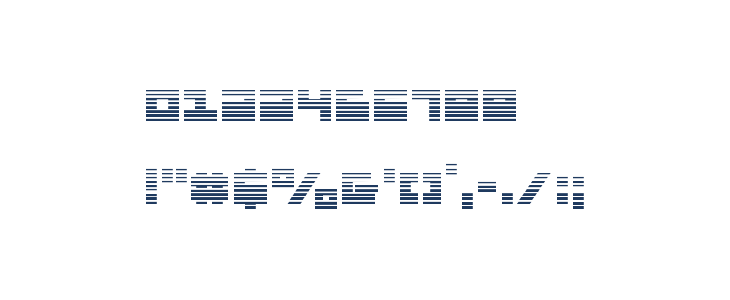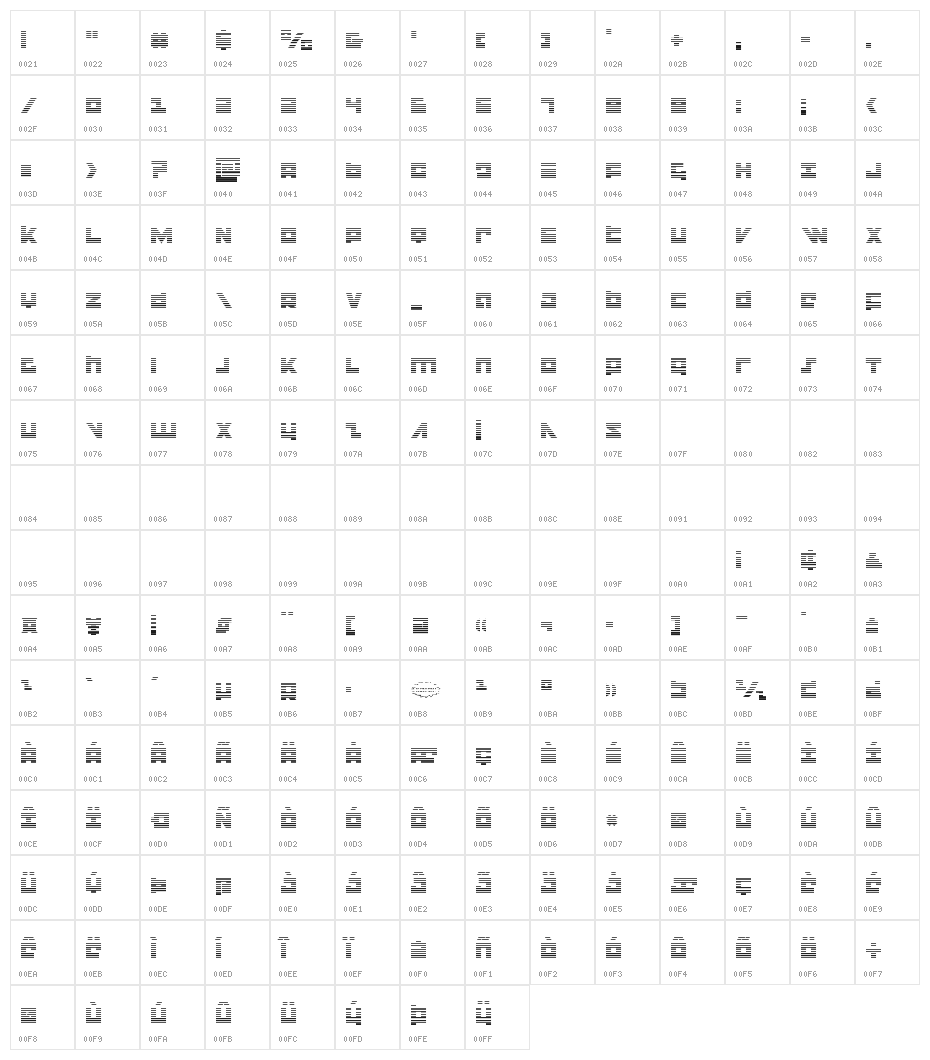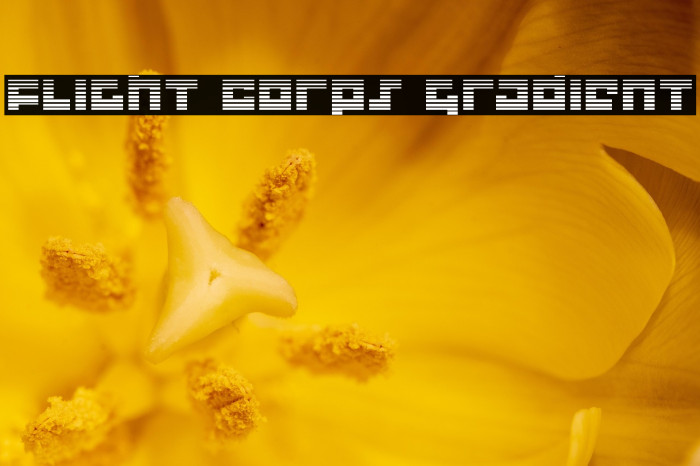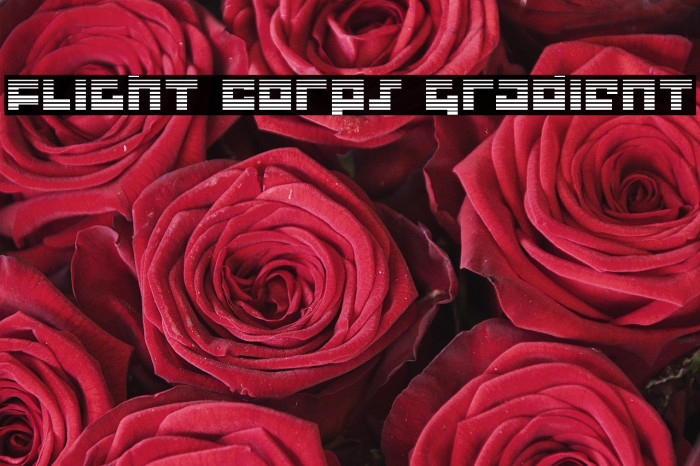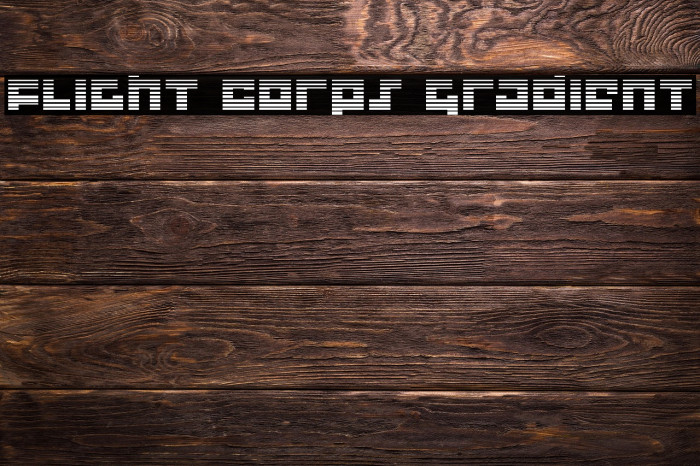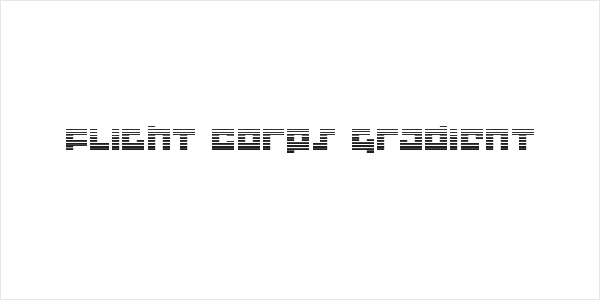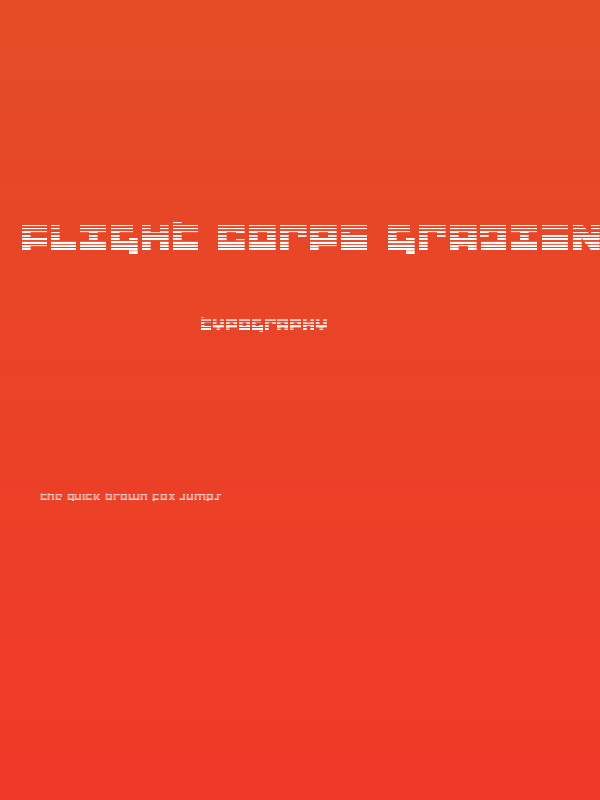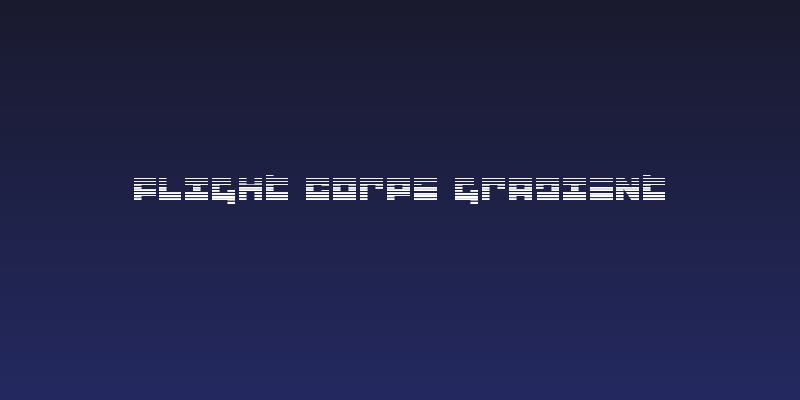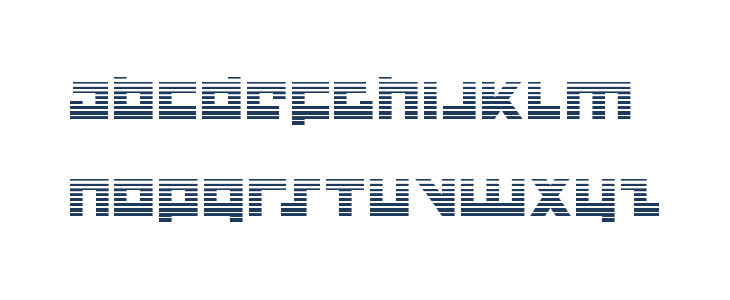
Flight Corps Gradient Font
Flight Corps Gradient Description
This font features a unique, futuristic design characterized by horizontal lines that create a gradient effect across each character. The letters are bold and geometric, with sharp angles and a structured appearance. The uppercase and lowercase letters maintain a consistent style, emphasizing a modern and technological aesthetic. The numbers and special characters follow the same design principles, ensuring uniformity across the entire set. This font's distinct visual style makes it stand out, ideal for projects that require a strong, contemporary look.
| Proposed Projects | Ideal for sci-fi themed designs, technology branding, video game titles, and modern posters. |